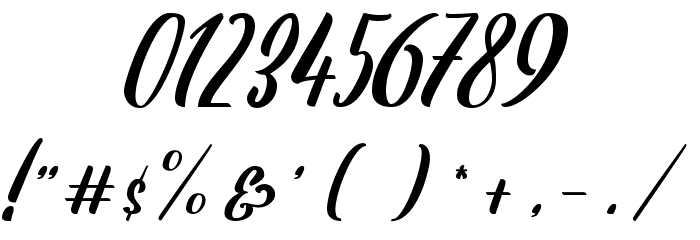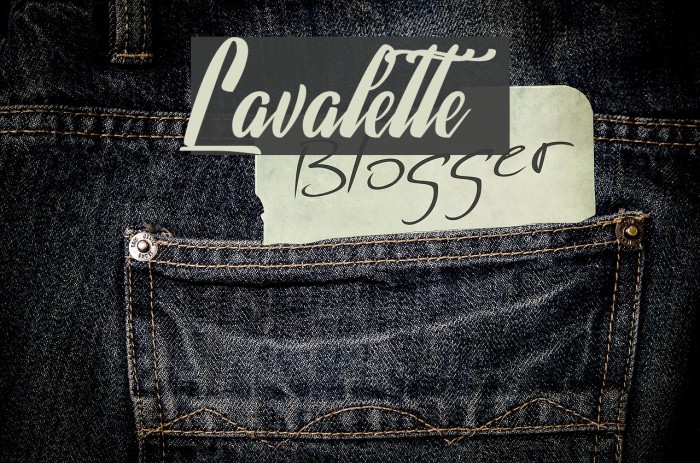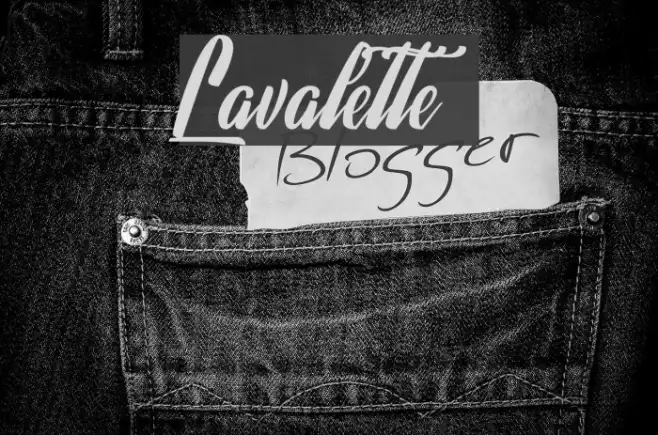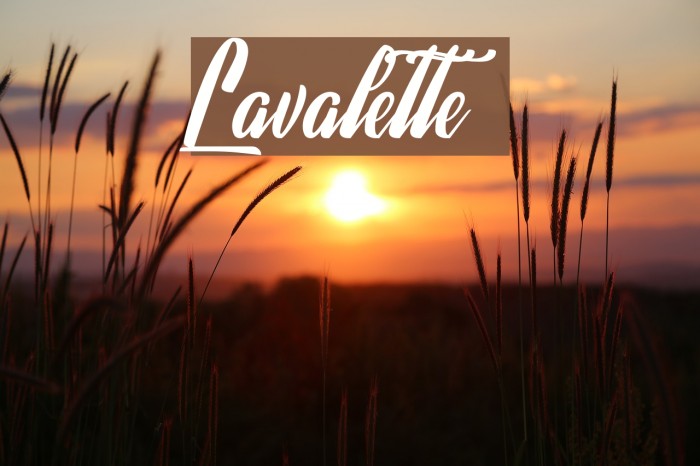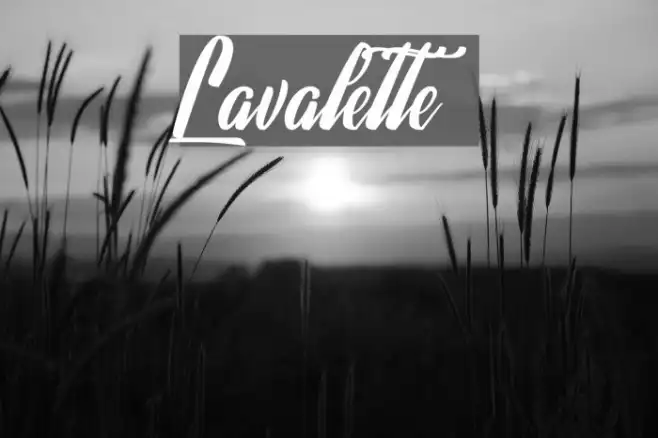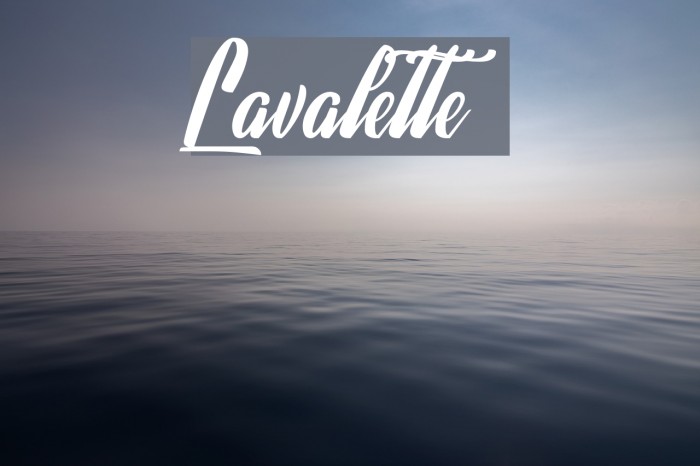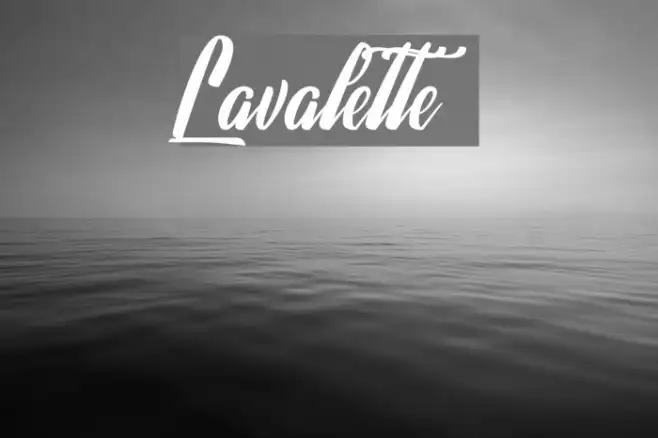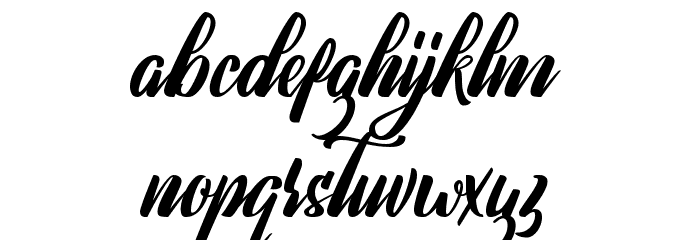
Lavalette Font
This font exudes a dynamic and elegant script style, characterized by its fluid, cursive strokes and a sense of movement. The uppercase letters are bold and sweeping, with a distinct flair that adds a touch of sophistication. The lowercase letters maintain the same fluidity, with some characters featuring unique loops and swashes that enhance the overall aesthetic. The numerals are consistent with the script style, offering a cohesive look throughout. Special characters are thoughtfully designed to match the elegance of the alphabet, making this font versatile for various design needs. Its high contrast in stroke thickness adds to its dramatic appearance, making it ideal for projects that require a touch of elegance and flair.
A dynamic and elegant script font with fluid, cursive strokes and high contrast.
• Proposed Projects: Ideal for wedding invitations, branding, logo design, and elegant packaging.
• Category: Script
• Contrast: High
• Overall Style: Elegant, Decorative
• Use Case: Logos, Invitations, Branding